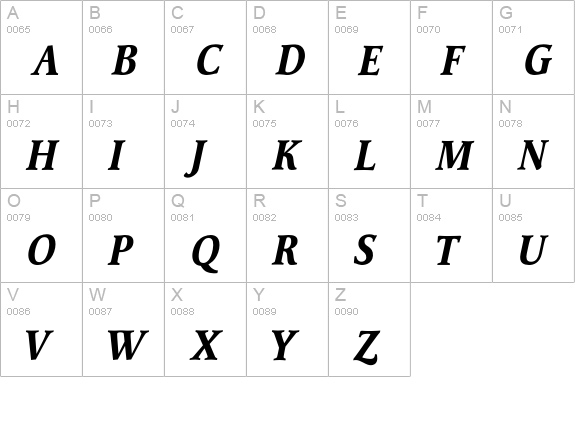
TFHabitat-BoldItalic Font Details
TFHabitat-BoldItalic is a striking and captivating font that effortlessly combines boldness and elegance. With its unique blend of strong, confident lines and delicate, slanted strokes, this font exudes an air of sophistication and creativity. Designed to make a bold statement, TFHabitat-BoldItalic is perfect for those who want to leave a lasting impression. Whether it's for branding, advertising, or any creative project that requires a touch of uniqueness, this font is sure to command attention. What sets TFHabitat-BoldItalic apart is not only its visual appeal but also its accessibility. Unlike many other premium fonts, TFHabitat-BoldItalic is freely available to download at FontsMarket.com. This means that you can enhance your designs without having to break the bank. So go ahead and unleash your creativity with TFHabitat-BoldItalic. Whether you want to add a touch of elegance to your logo, create eye-catching headlines, or simply make your designs stand out, this font is the perfect tool to elevate your work to the next level. Download TFHabitat-BoldItalic today and let your imagination run wild.